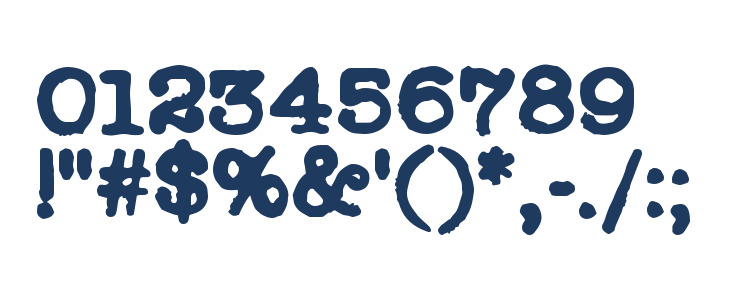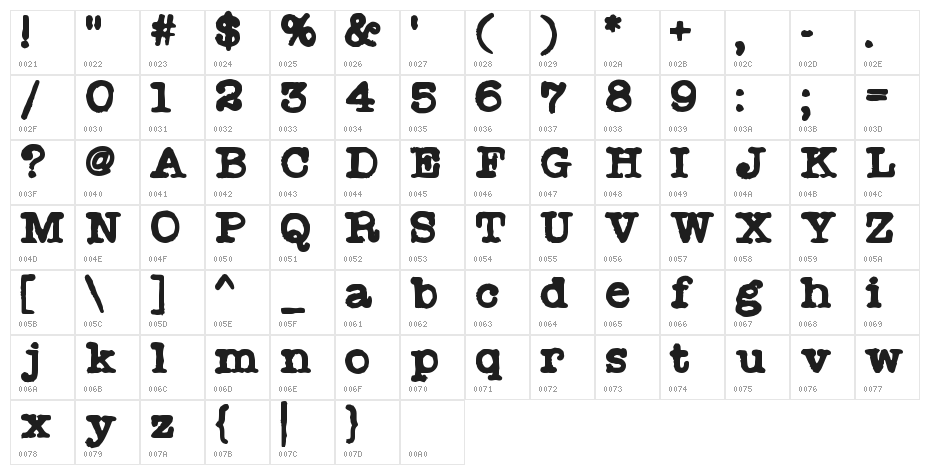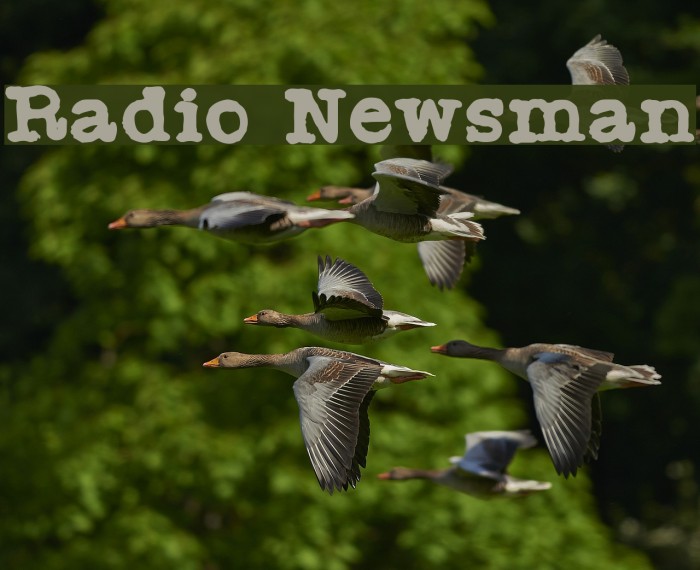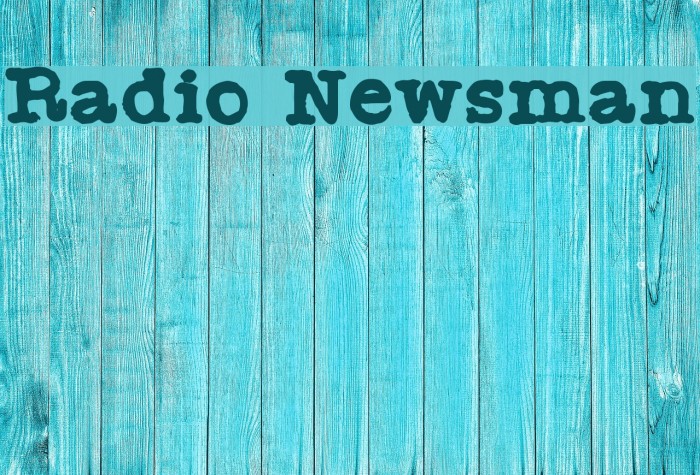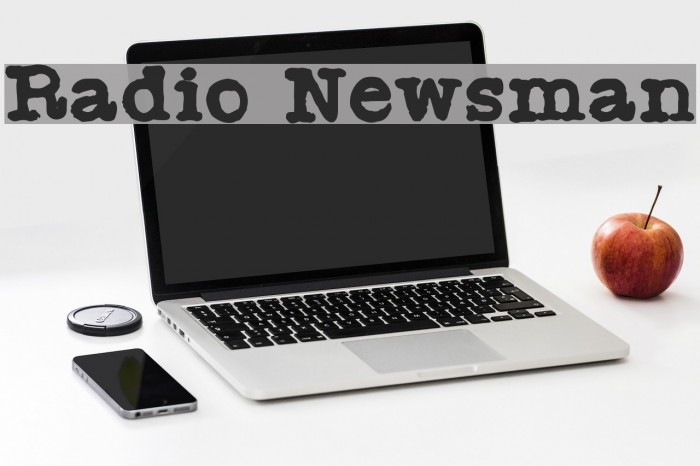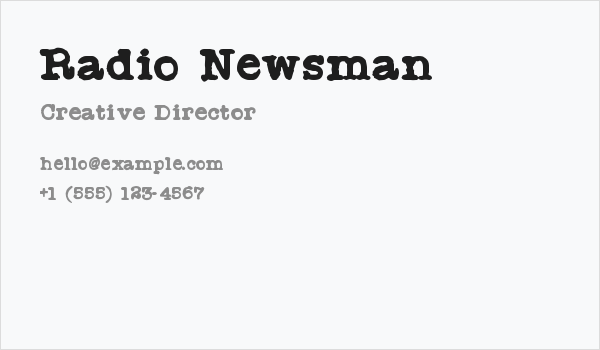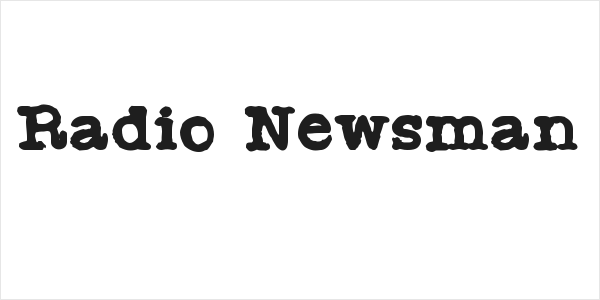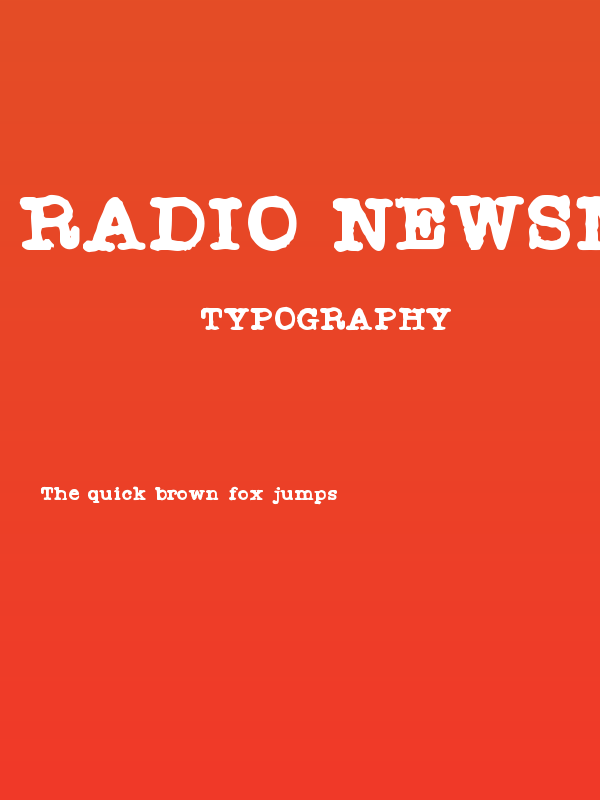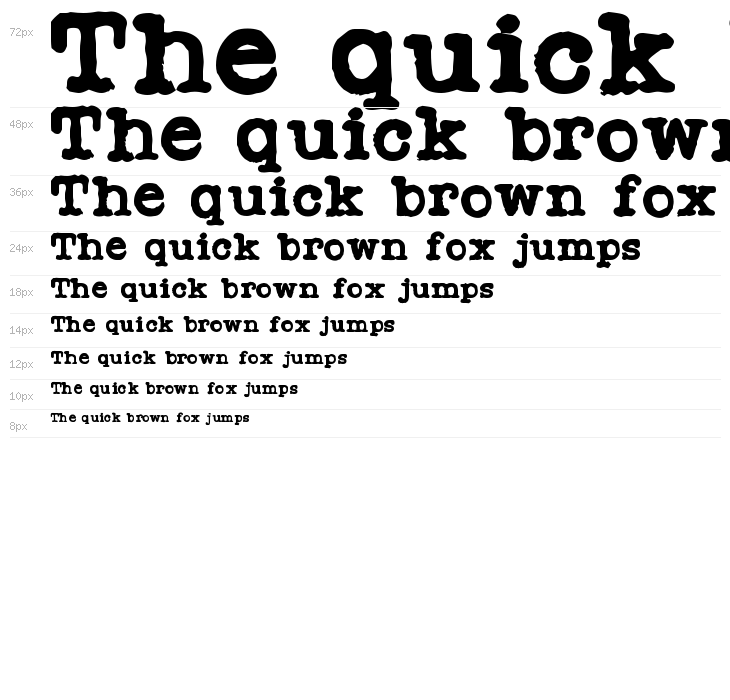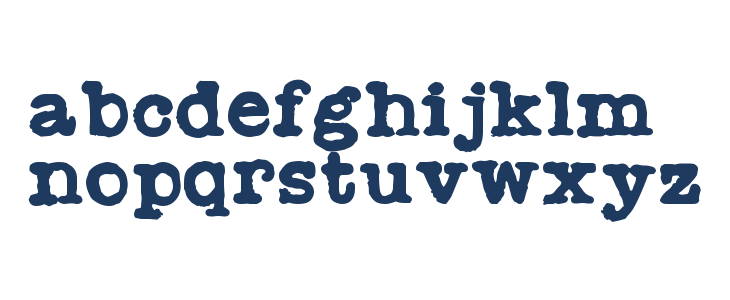
Radio Newsman Font
Radio Newsman Description
This font features a bold and rugged appearance, reminiscent of vintage typewriter styles. The characters are slightly irregular, giving them a hand-crafted feel, while maintaining a strong and impactful presence. The uppercase letters are robust and commanding, while the lowercase letters retain a consistent weight, ensuring readability. Numbers and special characters follow the same bold style, making them suitable for various applications. The font's distressed look adds a layer of authenticity and character, making it ideal for projects that require a touch of nostalgia or a retro aesthetic.
Overall StyleVintage
Proposed ProjectsIdeal for retro-themed designs, posters, branding, and any project requiring a vintage or typewriter aesthetic.